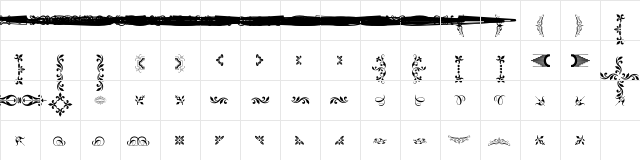
Complete MuseeOrnaments Regular glyph index. Displaying only characters natively supported by MuseeOrnaments Regular font.
MuseeOrnaments is built around its visual character rather than neutral utility - its distinctive forms are designed to make an impression at display sizes.
Font Pairing: Pair with a clean neutral sans-serif for body copy to let MuseeOrnaments's character lead without overwhelming the composition.
Pro Tip: Use MuseeOrnaments exclusively at display sizes - it was designed to be seen, not read at length. Let a neutral companion handle body copy.